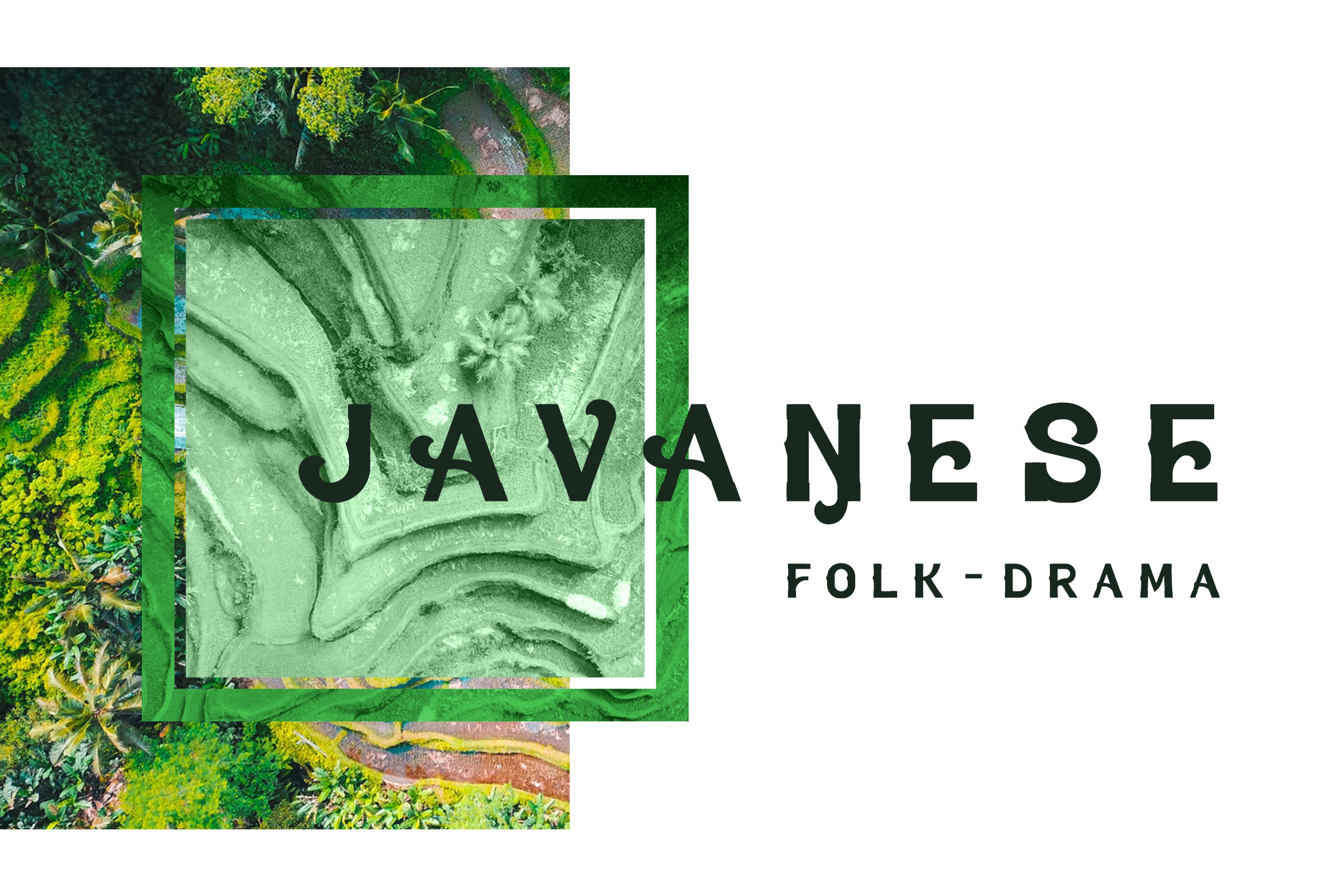
Ketoprak Font
Ketoprak font that works beautifully for branding projects and quotes. This font is pretty versatile in the sense that it can be used normally.
it is suitable for almost anything you can think of. Especially for packaging design.
Inspired by a traditional Indonesian street food dish that's often described as tofu salad. It's made with a combination of fried tofu, steamed rice cakes, rice vermicelli noodles, bean sprouts, cabbage, and cucumbers. The combination is served in peanut sauce and sweet soy sauce called ketoprak